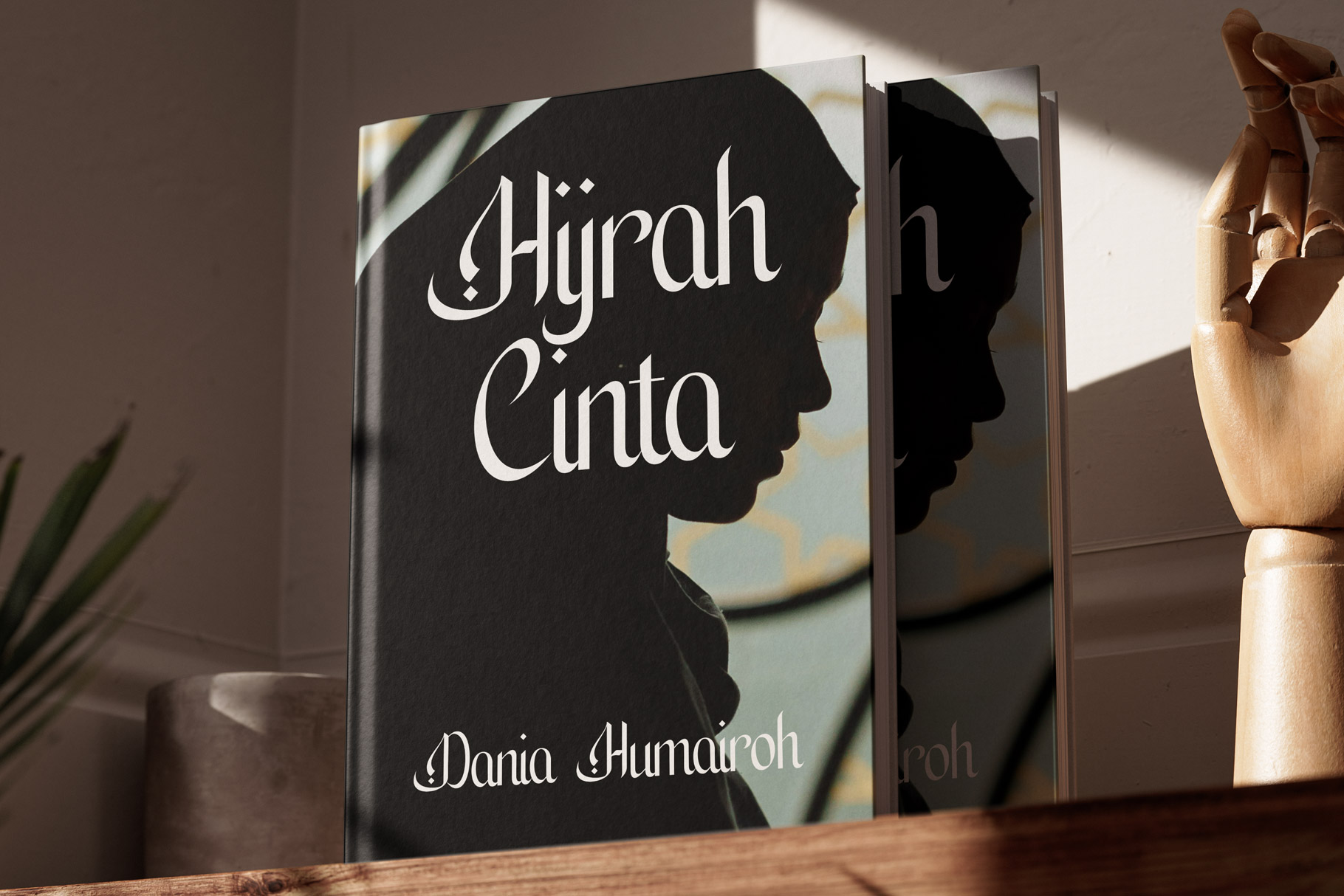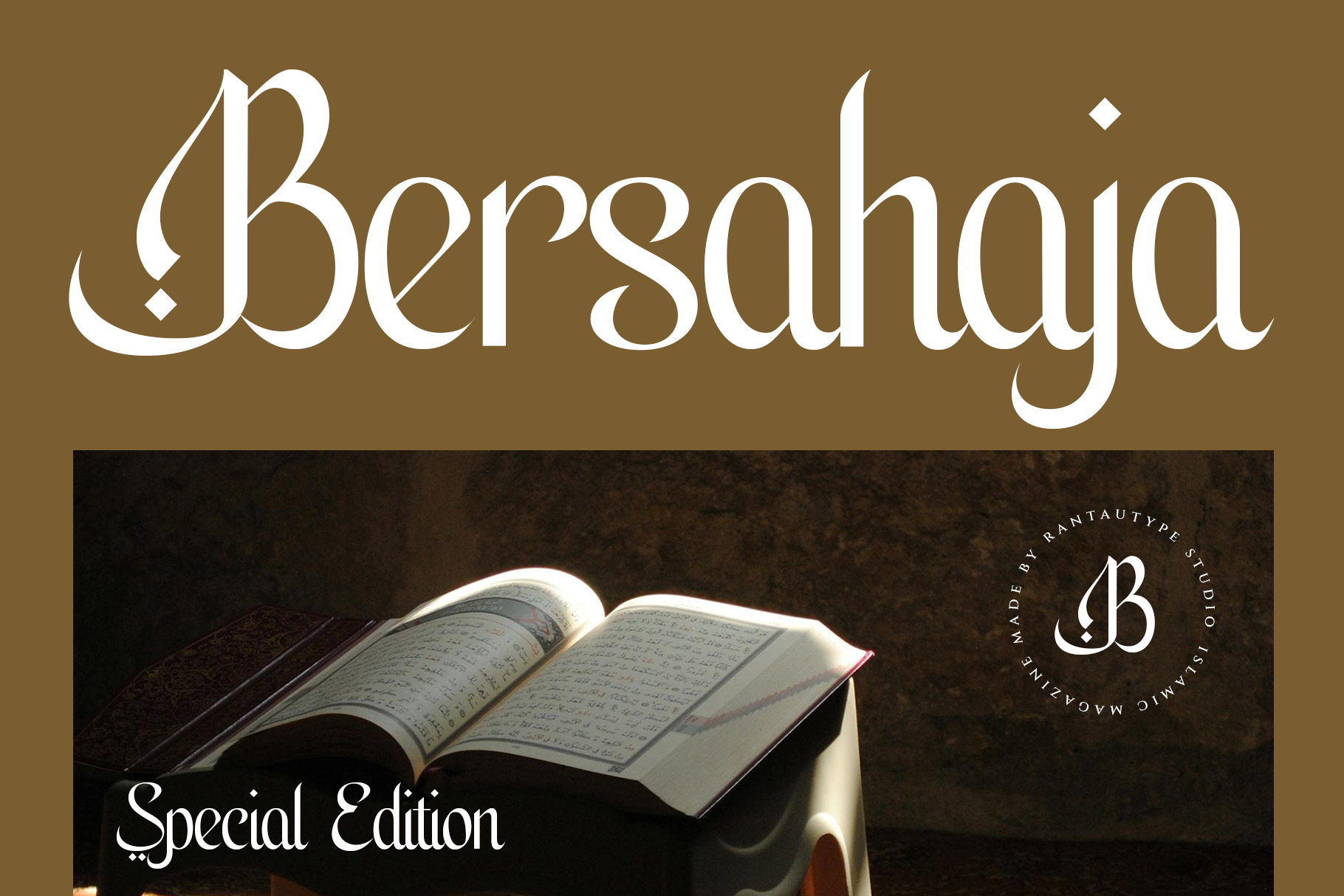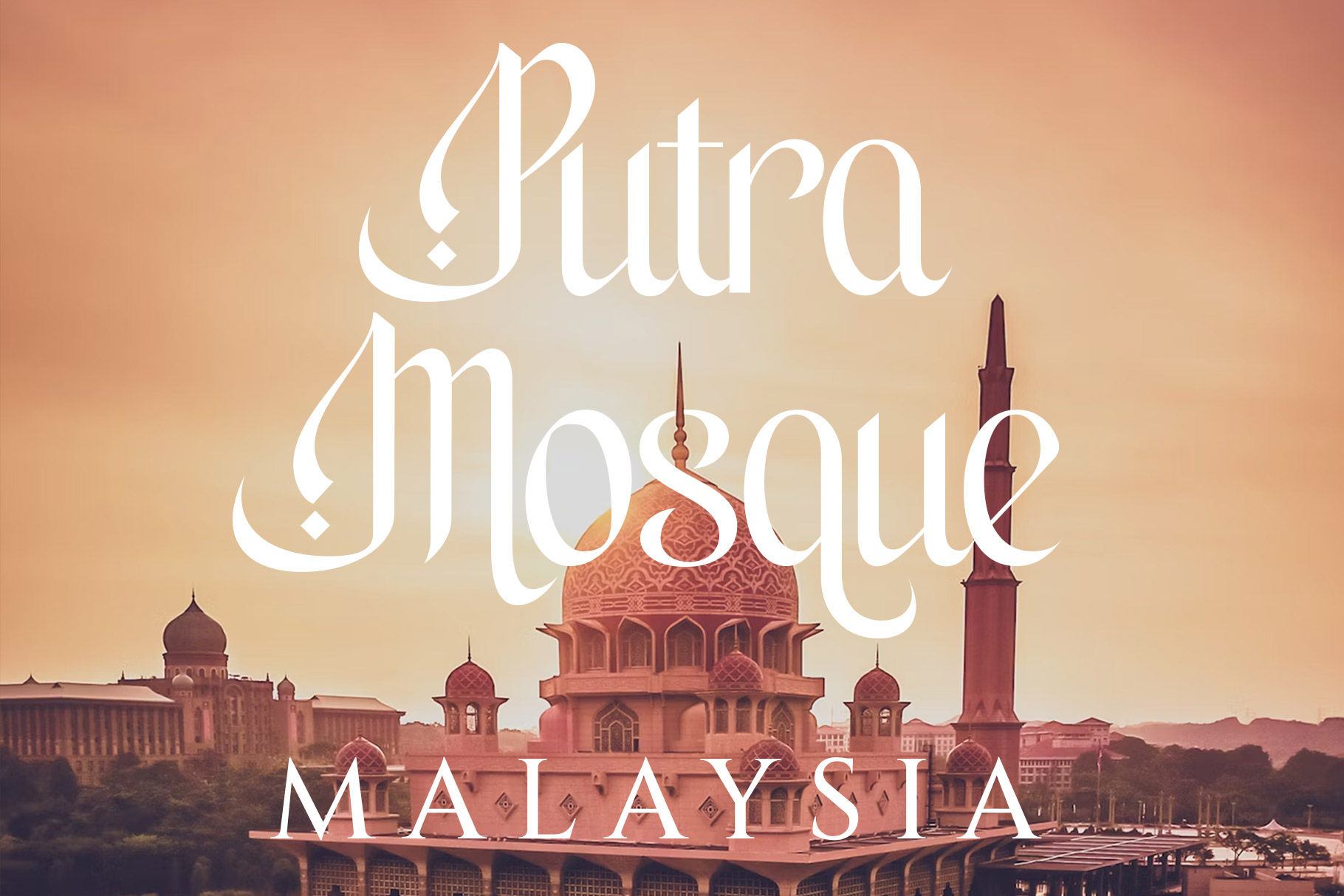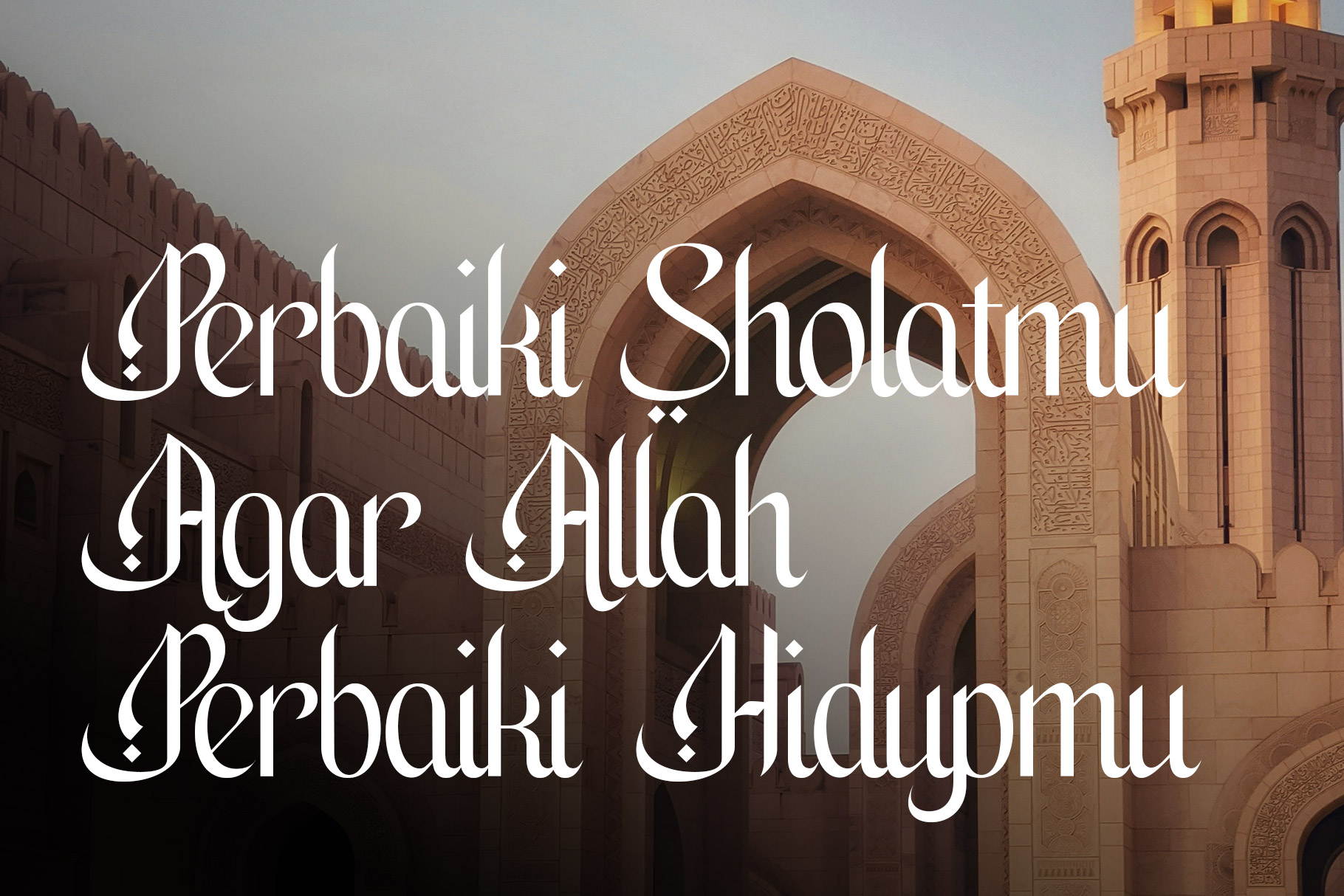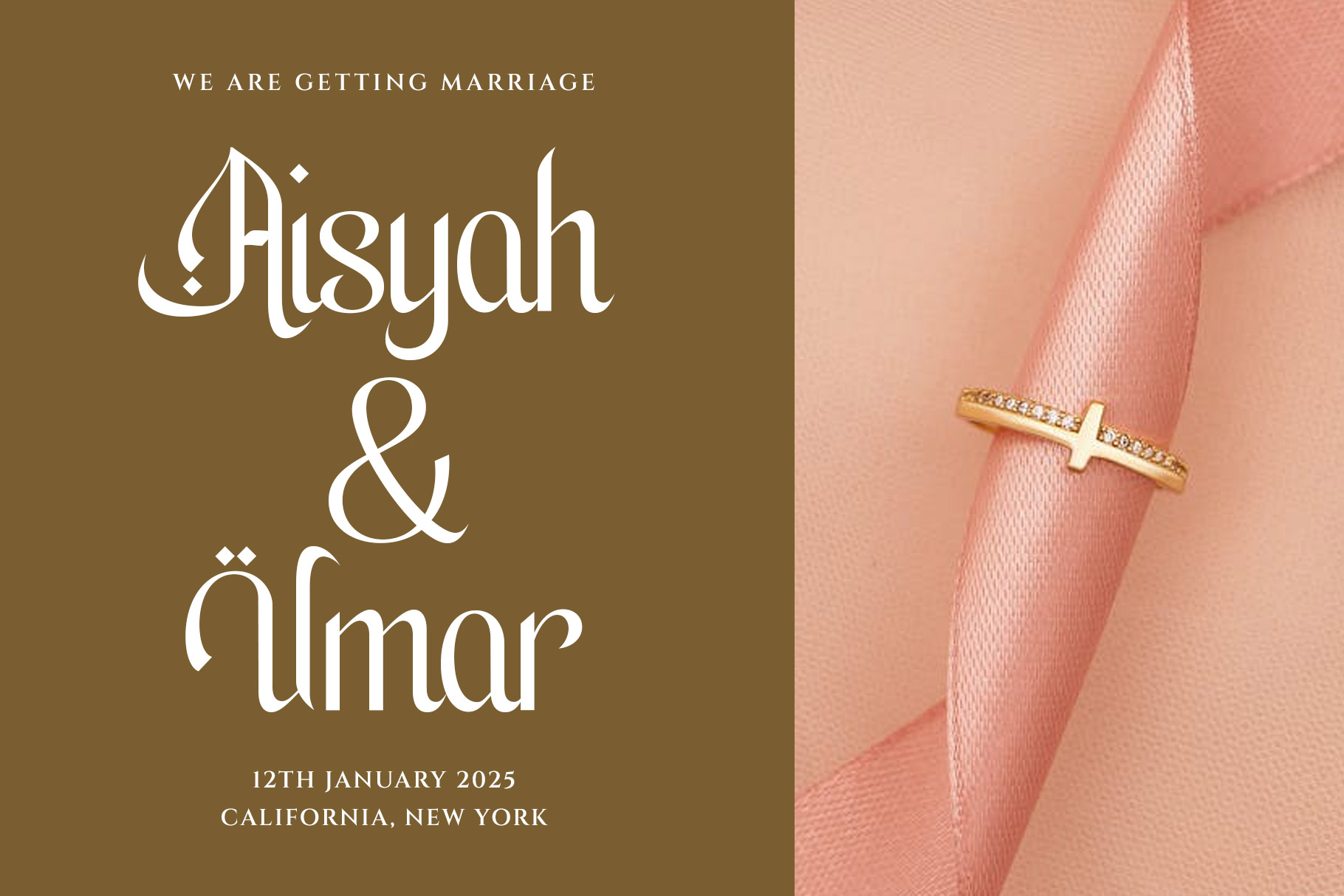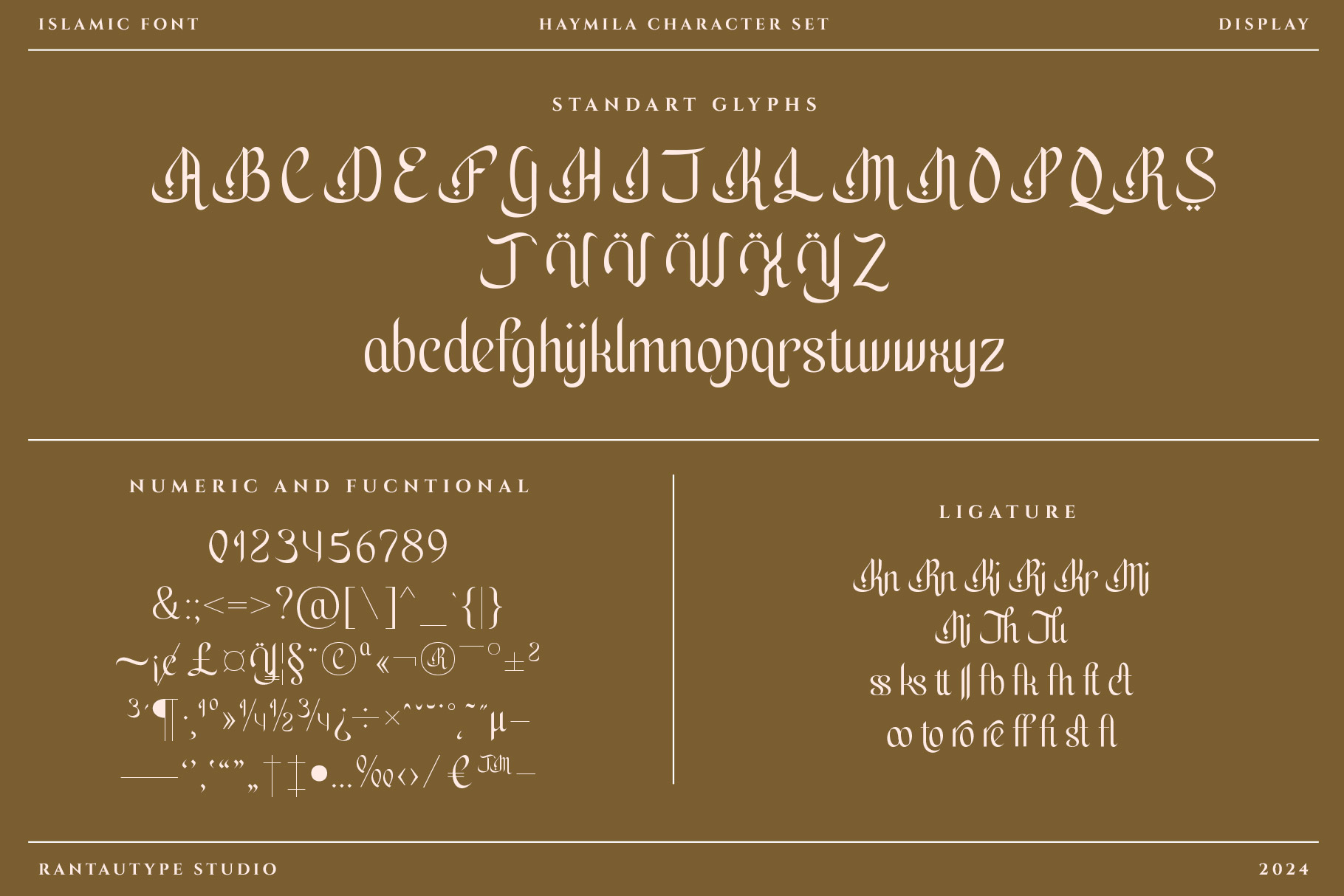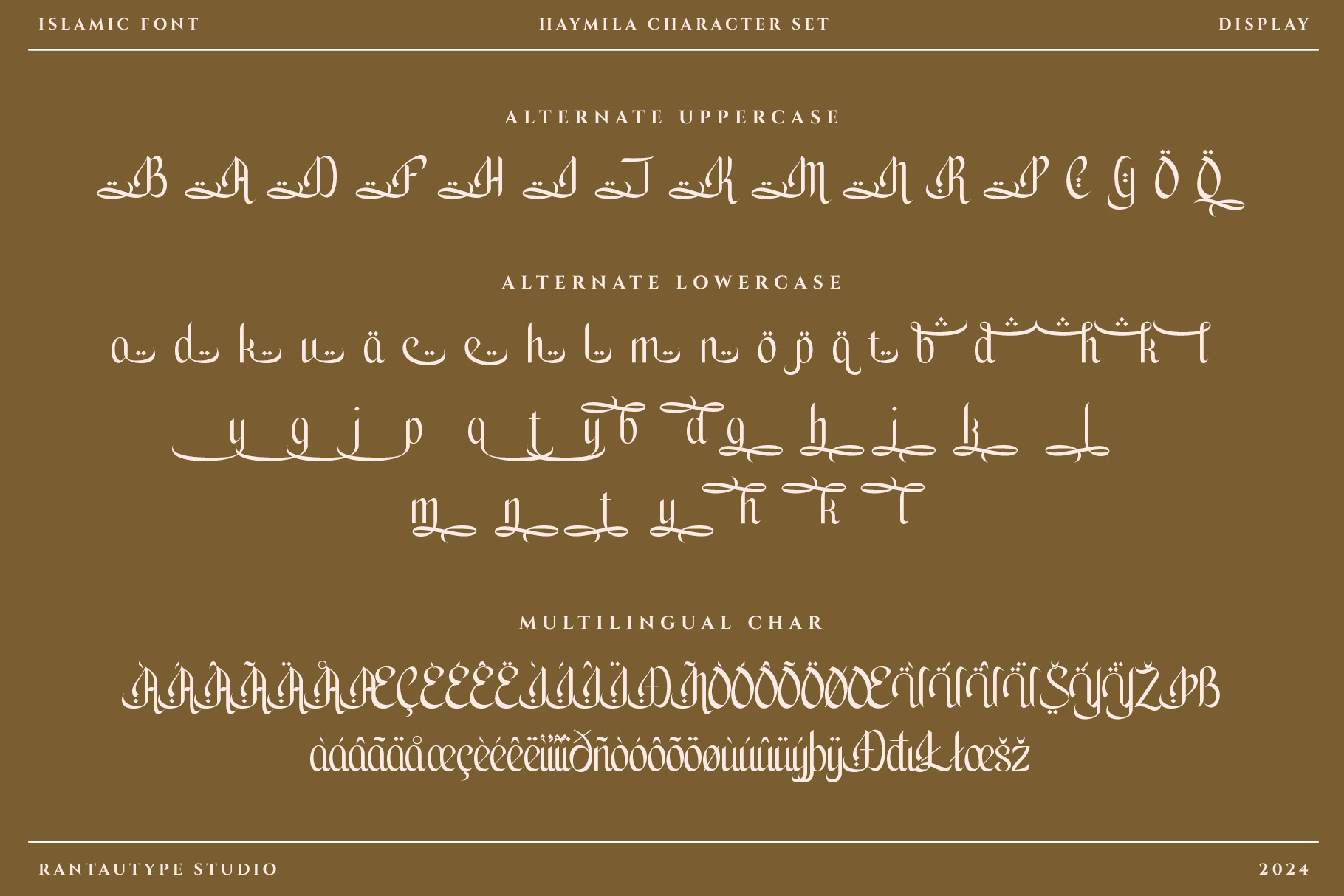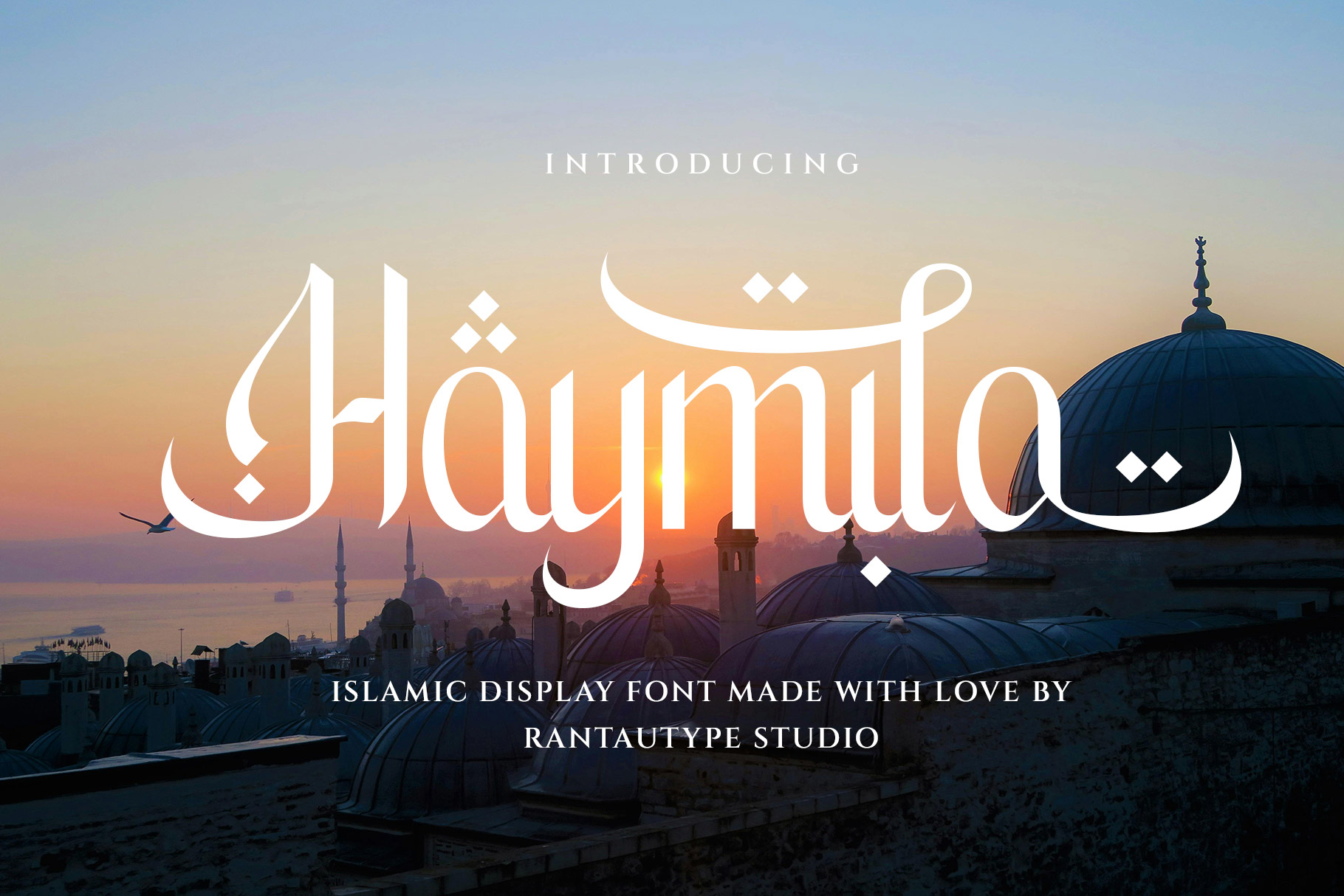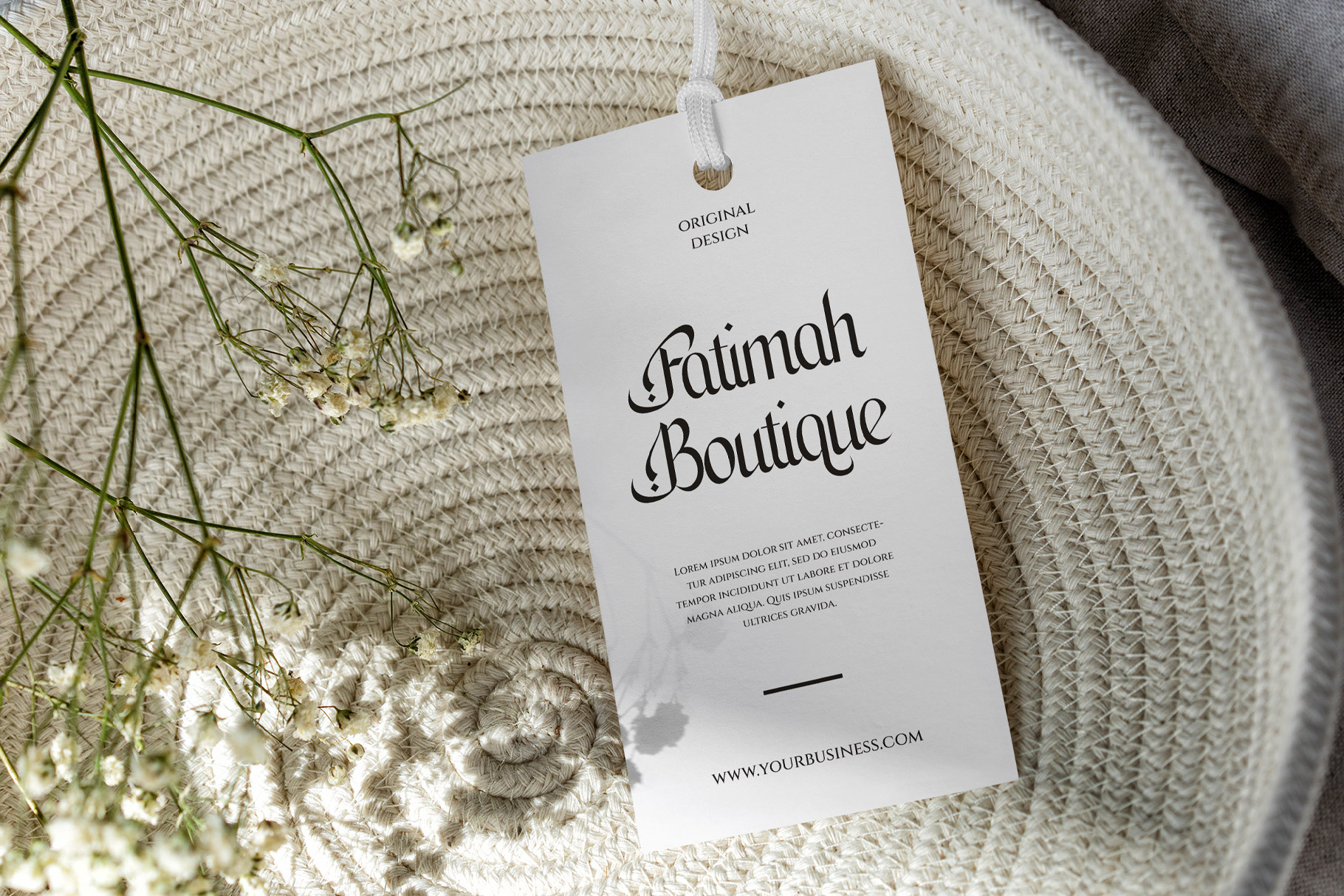
Haymila Islamic Display Font
Haymila is islamic font with elegant character. Haymila come with beautiful alternate you can mix and match to create awesome design project.
Haymila is a beautiful choice for any creative endeavor, creating, modern, chic, lifestyle design such as logotype, title, cover, branding, invitations, wedding designs, display and magazine, social media posts, advertisements, printed quotes, product packaging, corporate brand, product designs, labels, photography, watermarks, special events and any other project with Islamic touch.